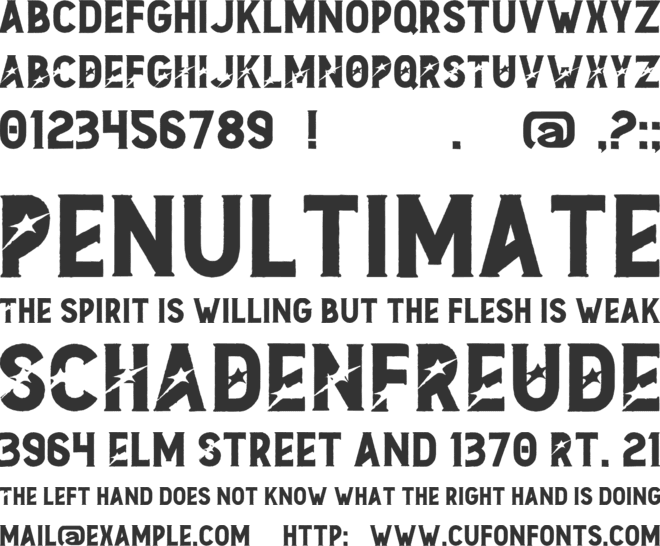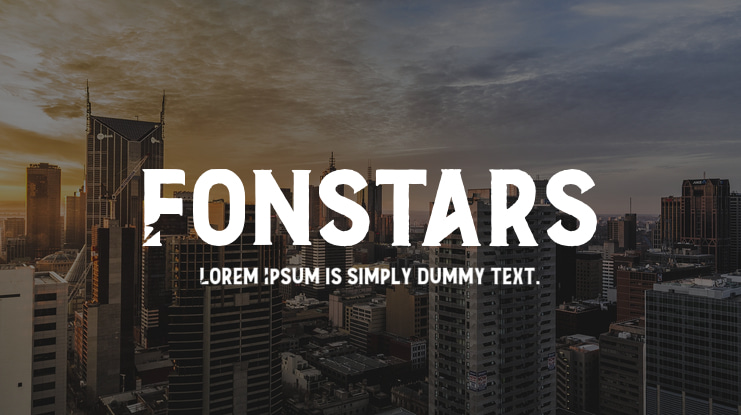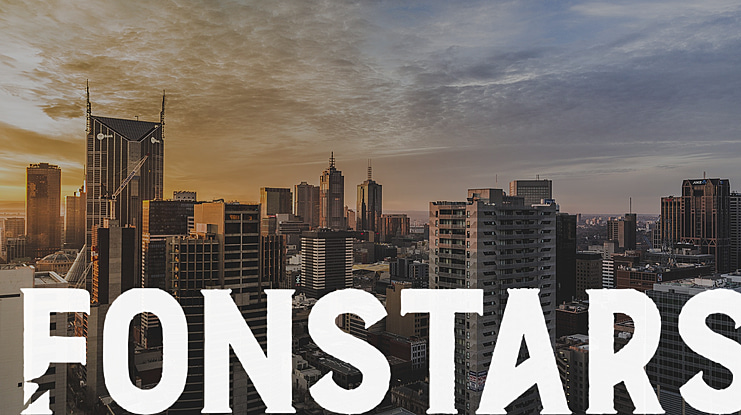
Fonstars Font
⚠IMPORTANT⚠
In order to produce a shooting star effect on your glyph you must use either a ~ (tilde),
[ (left bracket), ] (right bracket), or
Typeface inspired by the "Beastars" logo and other variants.
"Beastars"(television series) is adapted by Orange Co., Ltd. and is written by Paru Itagaki.